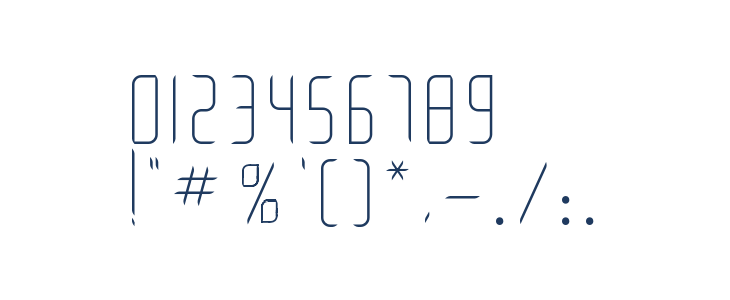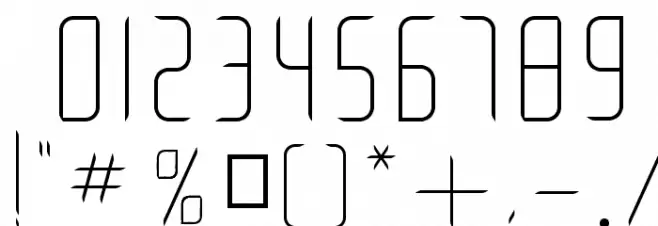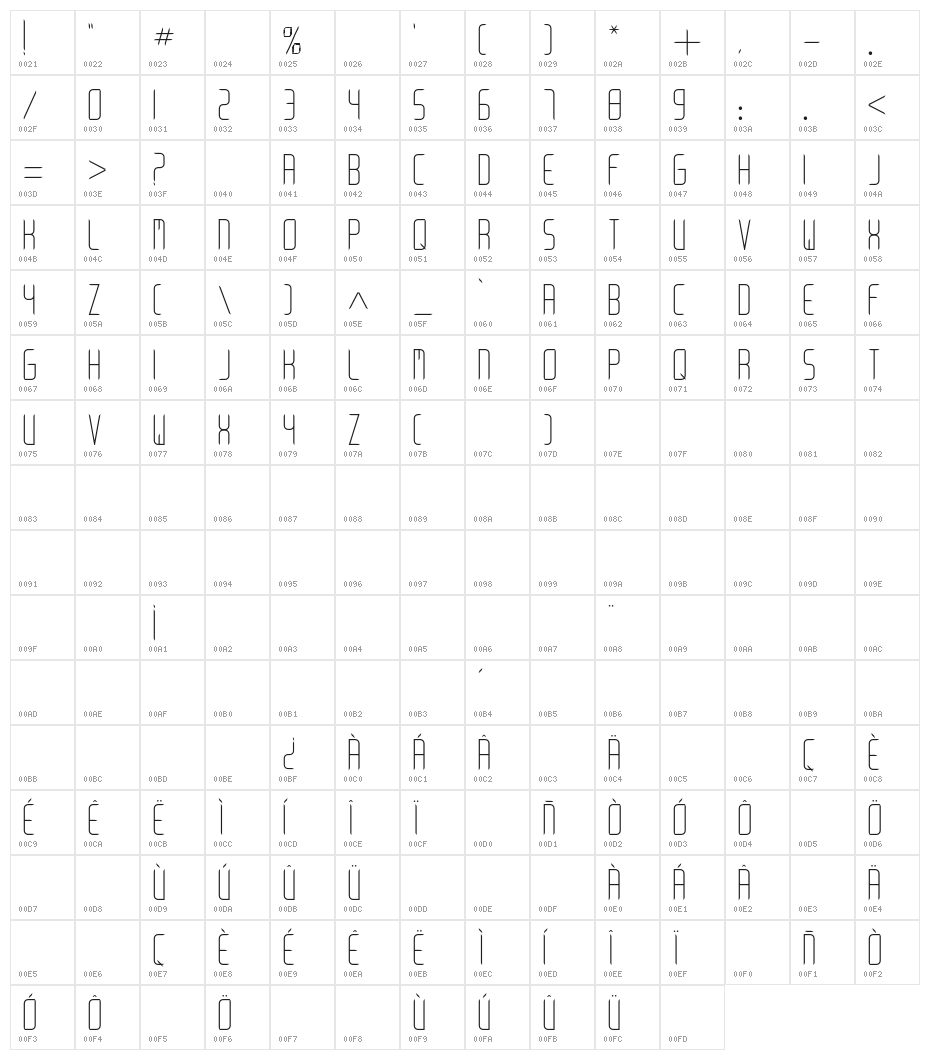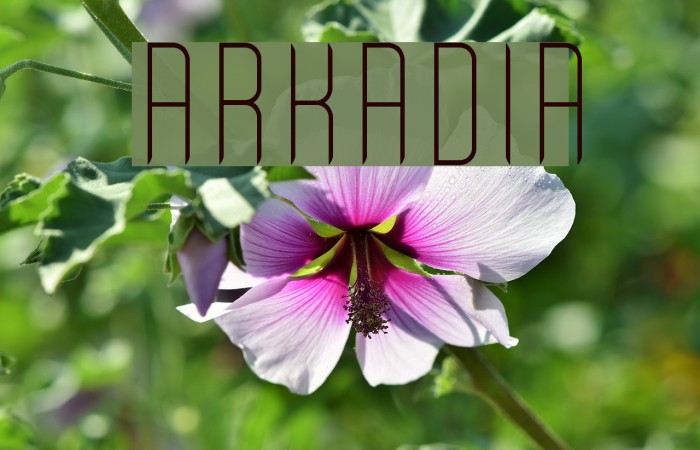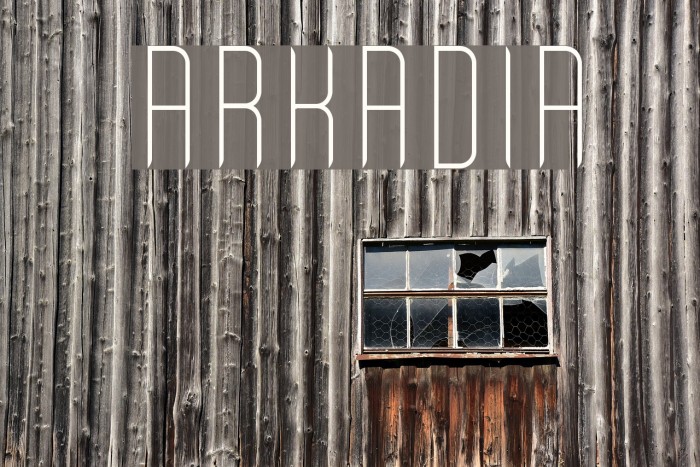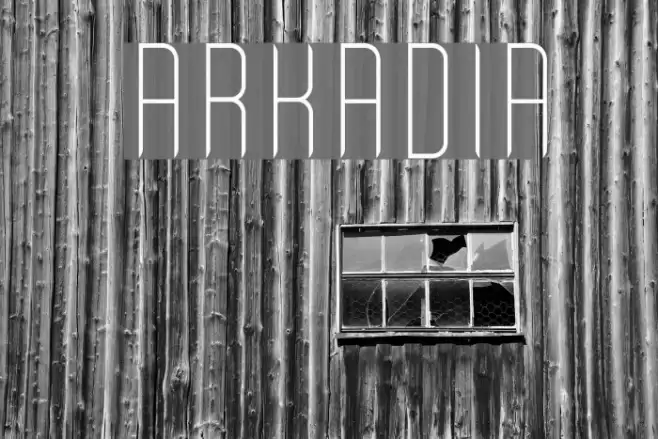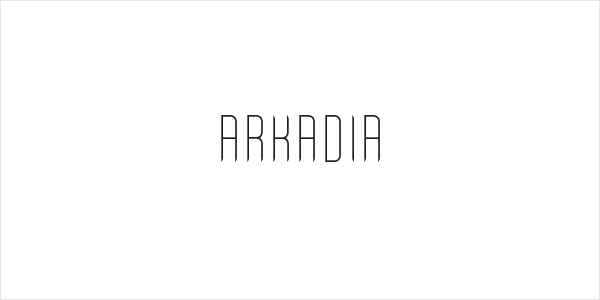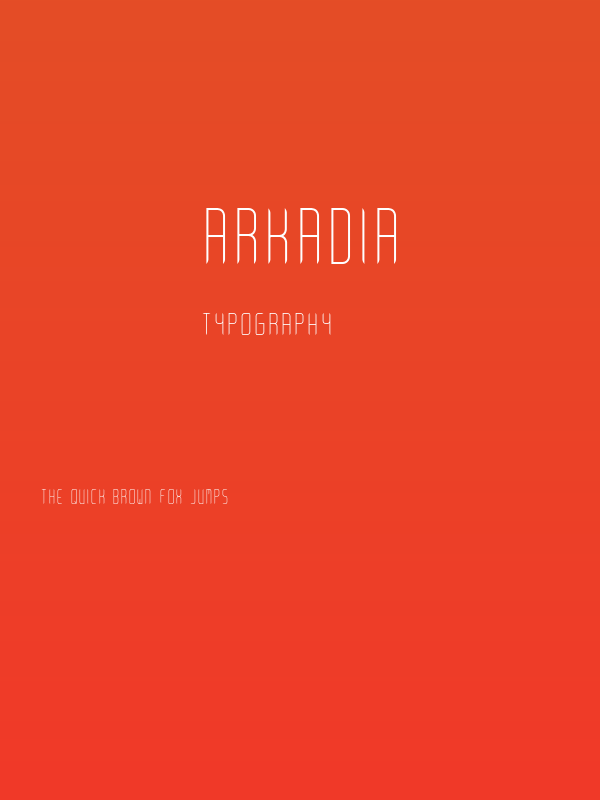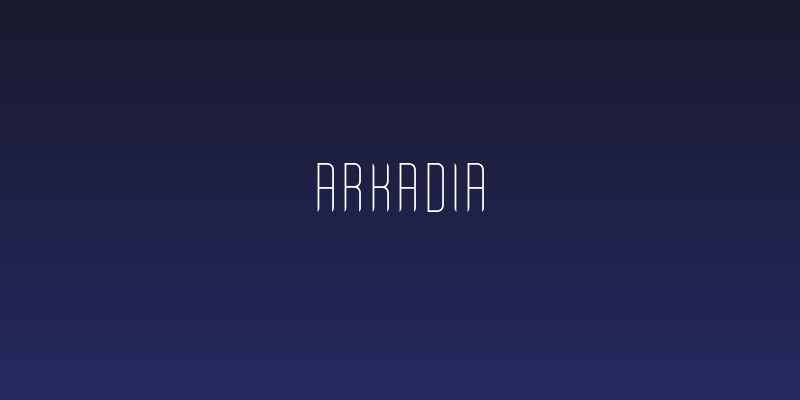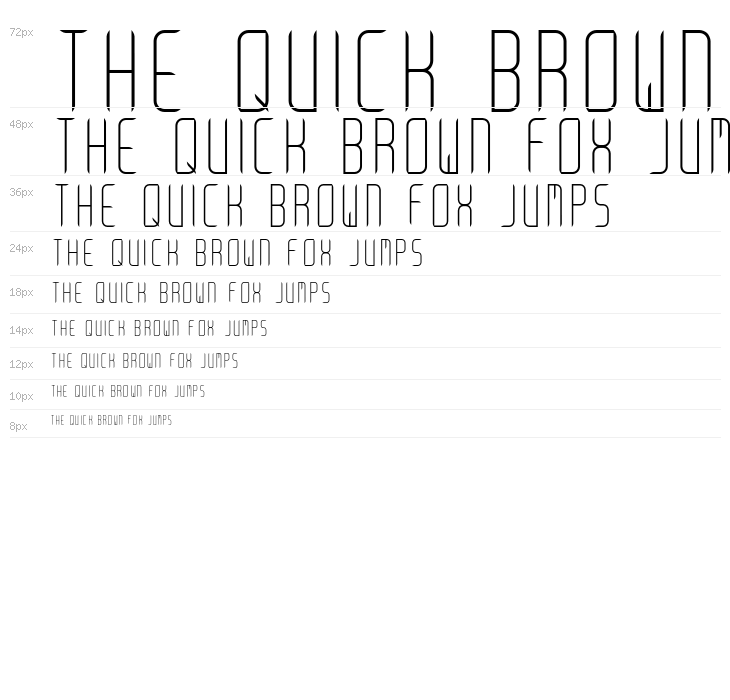
Arkadia Font
Arkadia Description
This font features a modern, geometric design with clean, straight lines and a minimalist aesthetic. The characters are tall and narrow, giving them a sleek and sophisticated appearance. The uppercase letters have a uniform height, while the lowercase letters maintain a consistent style with slightly reduced height. The numerals are distinct and align well with the overall design, ensuring readability. Special characters are included, maintaining the same geometric style, which adds versatility to the font. The thin strokes and uniform line weight contribute to a contemporary look, making it suitable for various design applications.
| Proposed Projects | Ideal for modern branding, tech-related designs, minimalist posters, and sleek product packaging. |